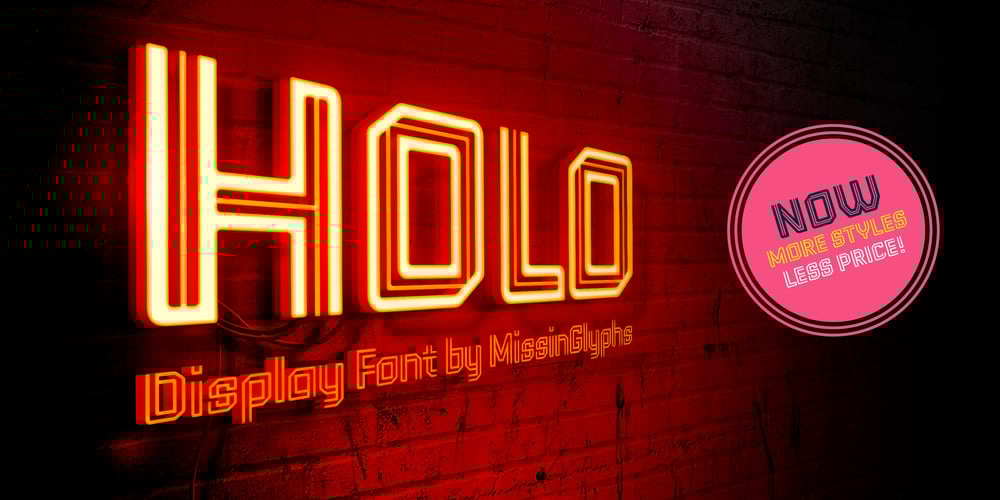
Holo Font Family was designed by Anand Naorem and published by Missin Glyphs. Holo contains 4 styles and family package options. Inspired by ‘Neon Sign’ lettering, Holo is a modern, modular, mechanical & industrial display font constructed entirely with polygonal shapes. Holo is suitable for large display settings like sports jerseys, shop fronts, billboards and neon signs.